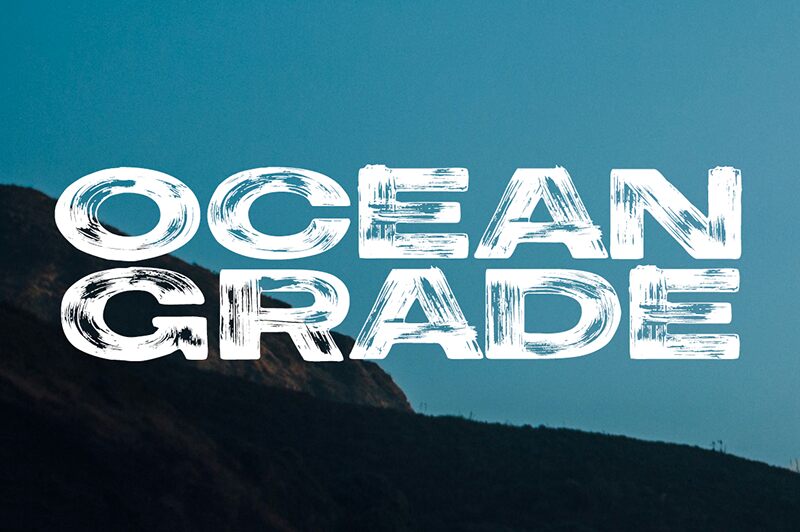
Ocean Grade
Ocean Grade font by The Branded Quotes is an eroded display typeface with a unique grunge texture. Its bold, expanded style lends a distressed, urban feel to any design. With irregular patterns and an artistic aesthetic, Ocean Grade is trendy yet straightforward and goes exceptionally well with macro photographs and posters.